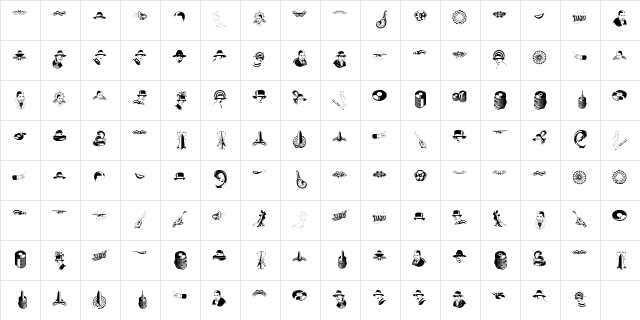
SLGardel Regular
Design Context for SLGardel Typeface
SLGardel is a composed and adaptable typeface that performs quietly and consistently across a wide range of design contexts.